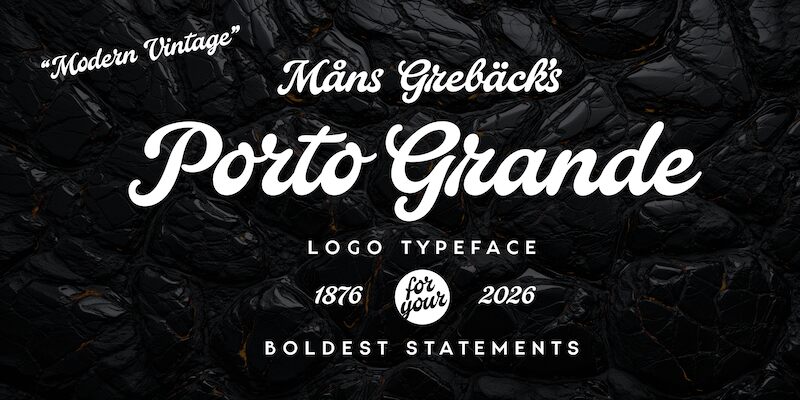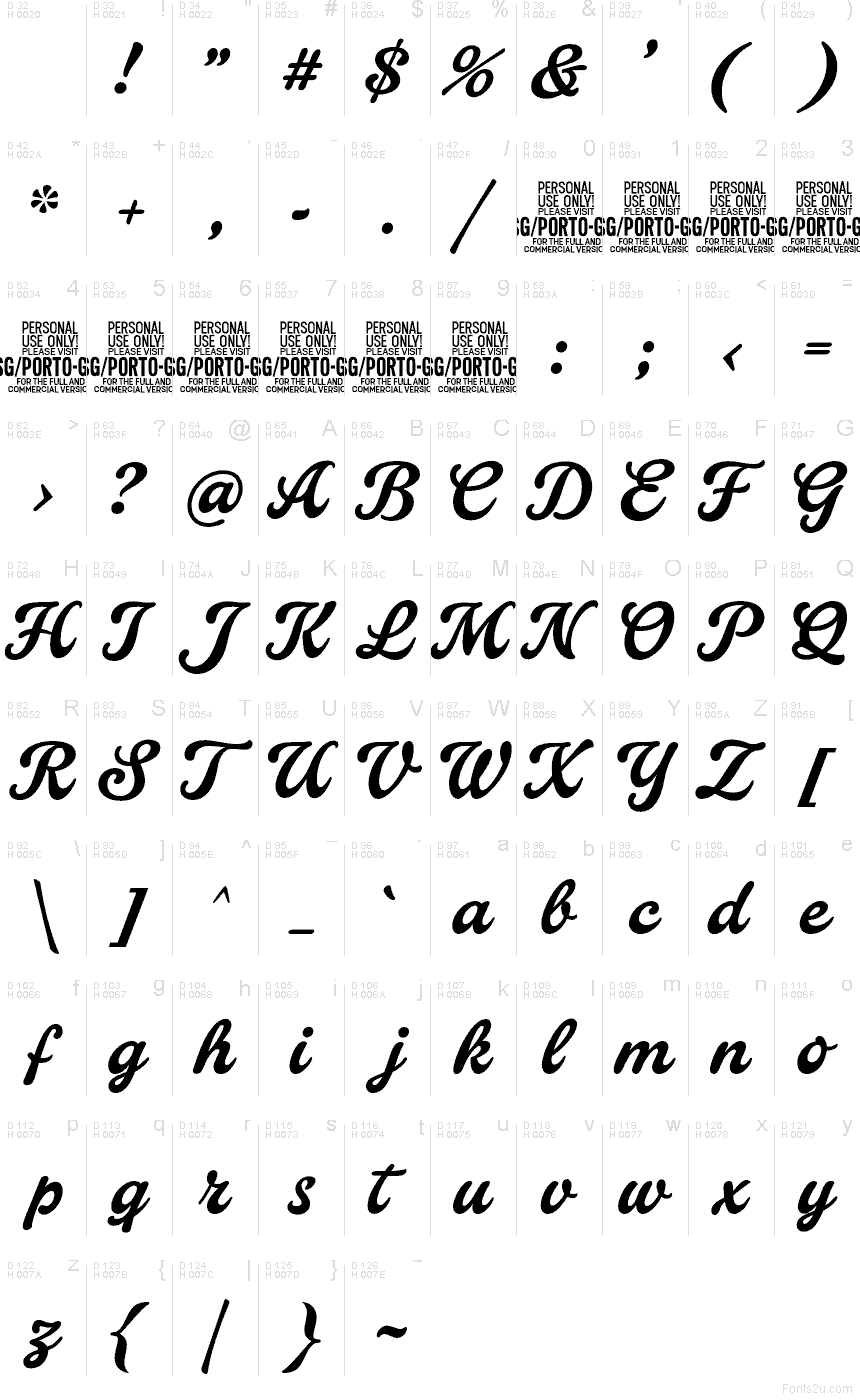
Porto Grande font by Mans Greback is a free brush script typeface with a warm, confident swagger. Its strokes feel like fresh ink pulled from a real sign-painter’s brush—rounded, steady, and smoothly connected—giving words a rich, hand-crafted rhythm without looking messy or forced. The letters carry a modern polish while still echoing vintage storefronts and café windows, so your titles come across both friendly and assured.
Using Porto Grande, your logos, packaging, menu headers, posters, social media graphics, and signage gain an immediate sense of personality and continuity. This free font shines on projects that need a bold, welcoming wordmark or a headline that feels written just for the viewer. For a clean, contemporary balance, pair Porto Grande with a simple geometric sans for supporting text and let this script stay slightly larger to show off its flowing curves.